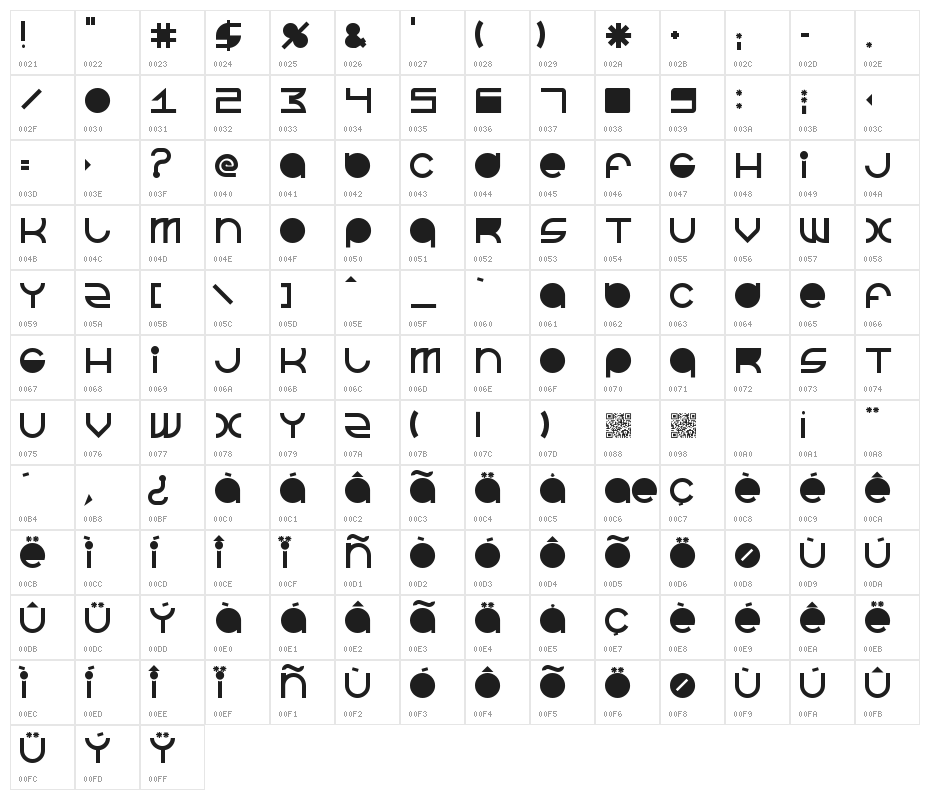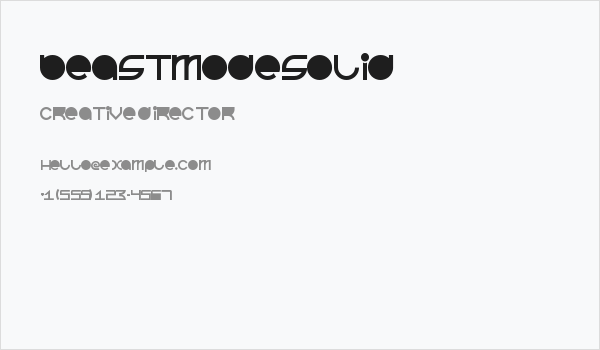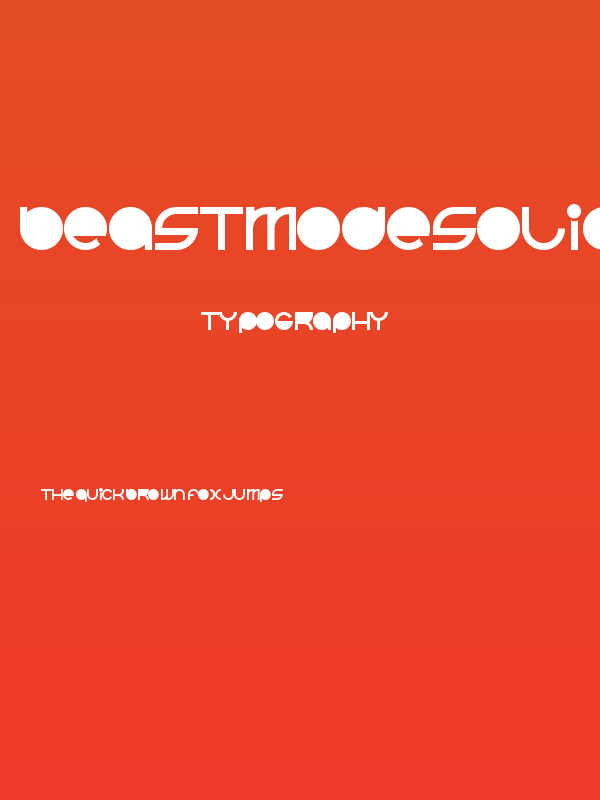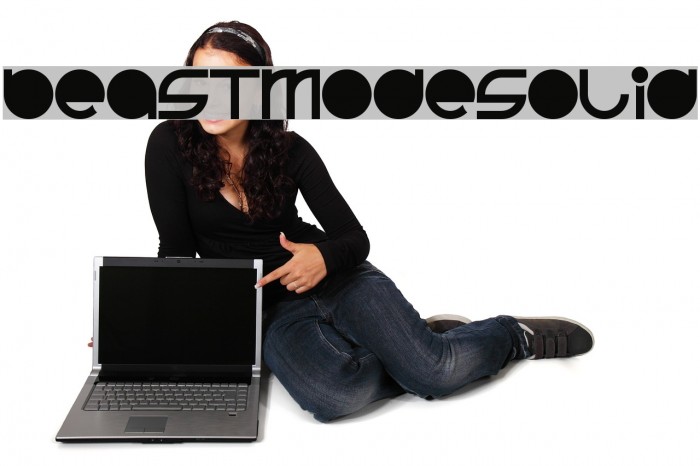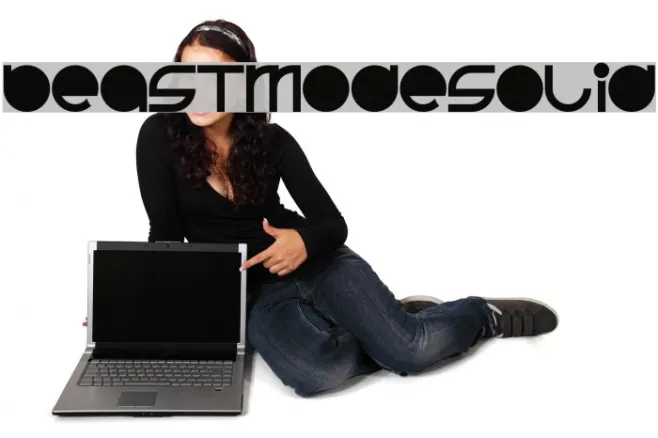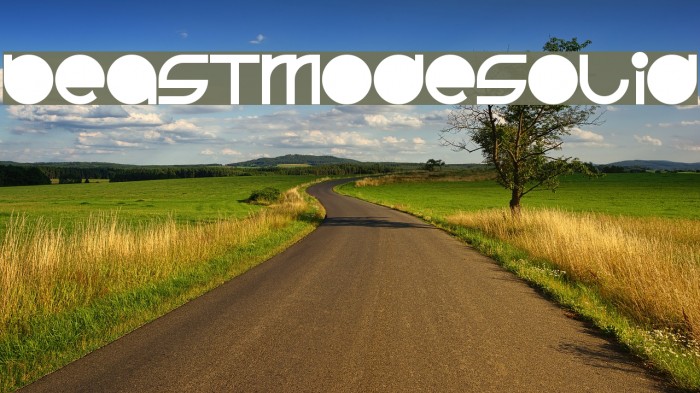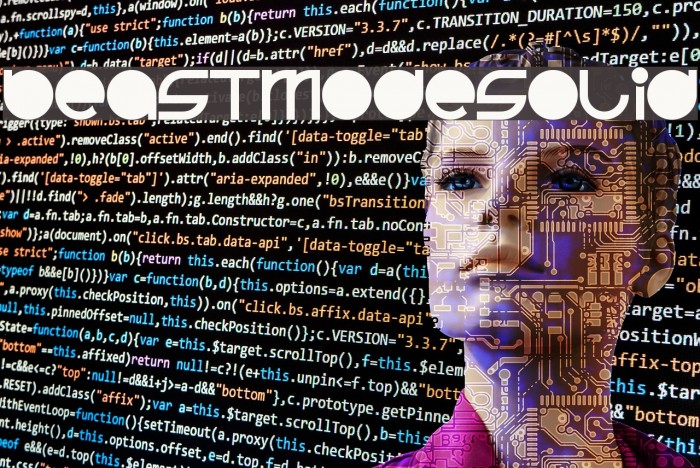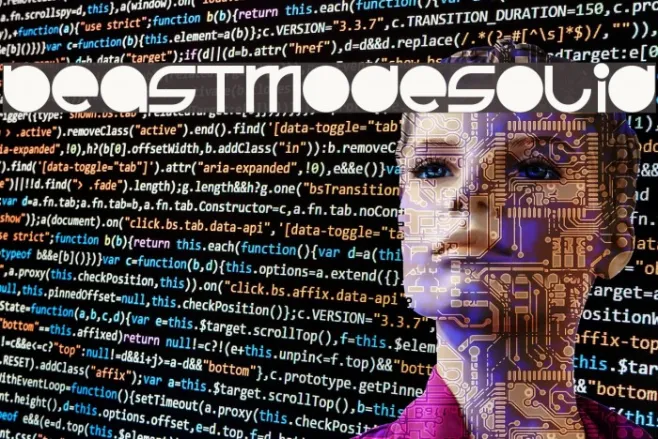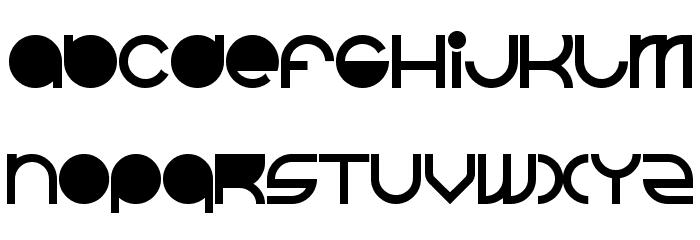
BeastModeSolid Font
BeastModeSolid Description
This font features a bold, geometric design with a futuristic flair. The characters are constructed with thick, solid strokes and a distinct use of circular and angular elements, creating a visually striking appearance. The uppercase and lowercase letters maintain a consistent style, with some characters exhibiting unique cutouts and shapes that add to the modern aesthetic. The numerals and special characters follow the same design principles, ensuring a cohesive look across all glyphs. This font's boldness and distinct style make it ideal for projects that require a strong visual impact.
| Use Case | Logos, Headlines, Posters |
| Proposed Projects | Ideal for branding, logos, posters, and any project needing a strong, modern visual impact. |